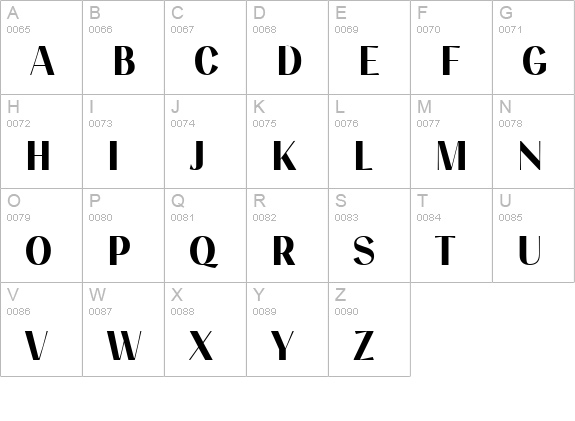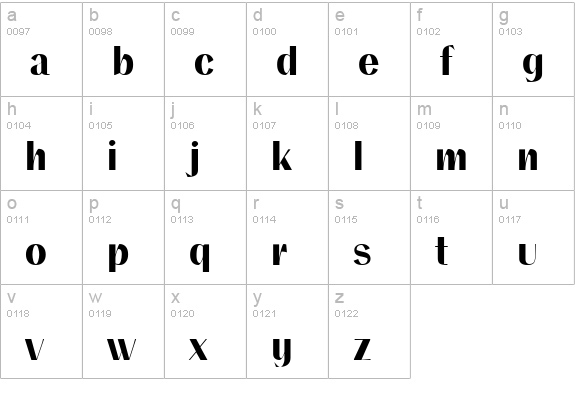
Sachalin Font Details
Introducing Sachalin font, a modern and stylish typeface that will elevate your design projects to the next level. With its sleek lines and elegant curves, Sachalin is perfect for branding, logos, headlines, and much more. This versatile font exudes sophistication and professionalism, making it a must-have for any designer looking to make a statement. The best part? Sachalin is completely free to download at FontsMarket.com. Yes, you read that right – you can get your hands on this premium font without spending a dime. Don't miss out on the opportunity to enhance your designs with Sachalin's unique charm and flair. Download it now and start creating stunning works of art today!